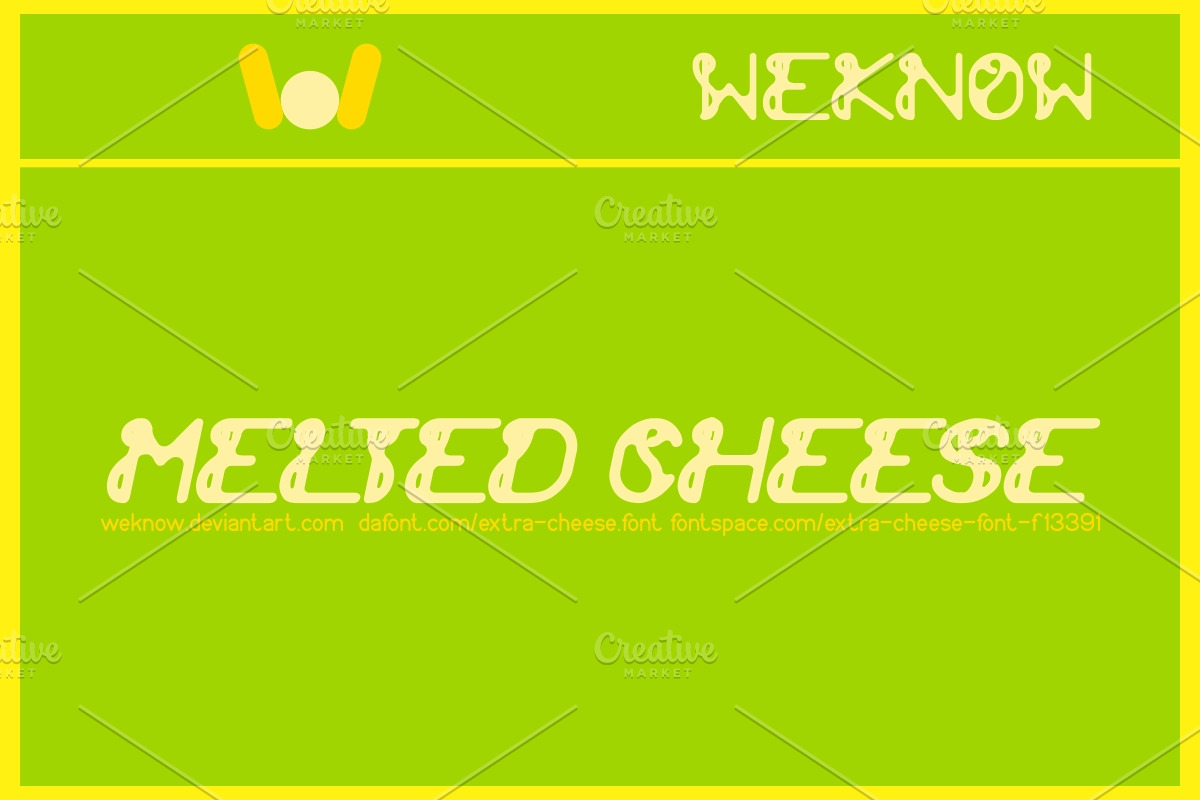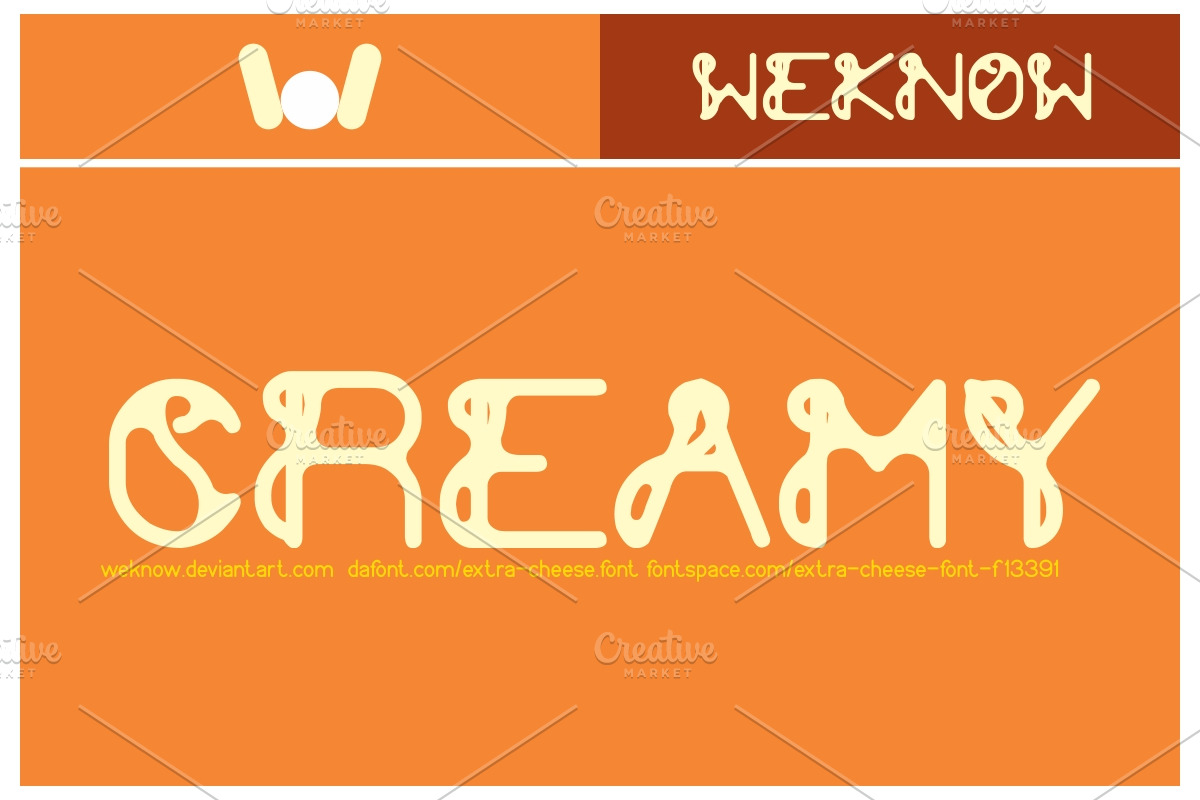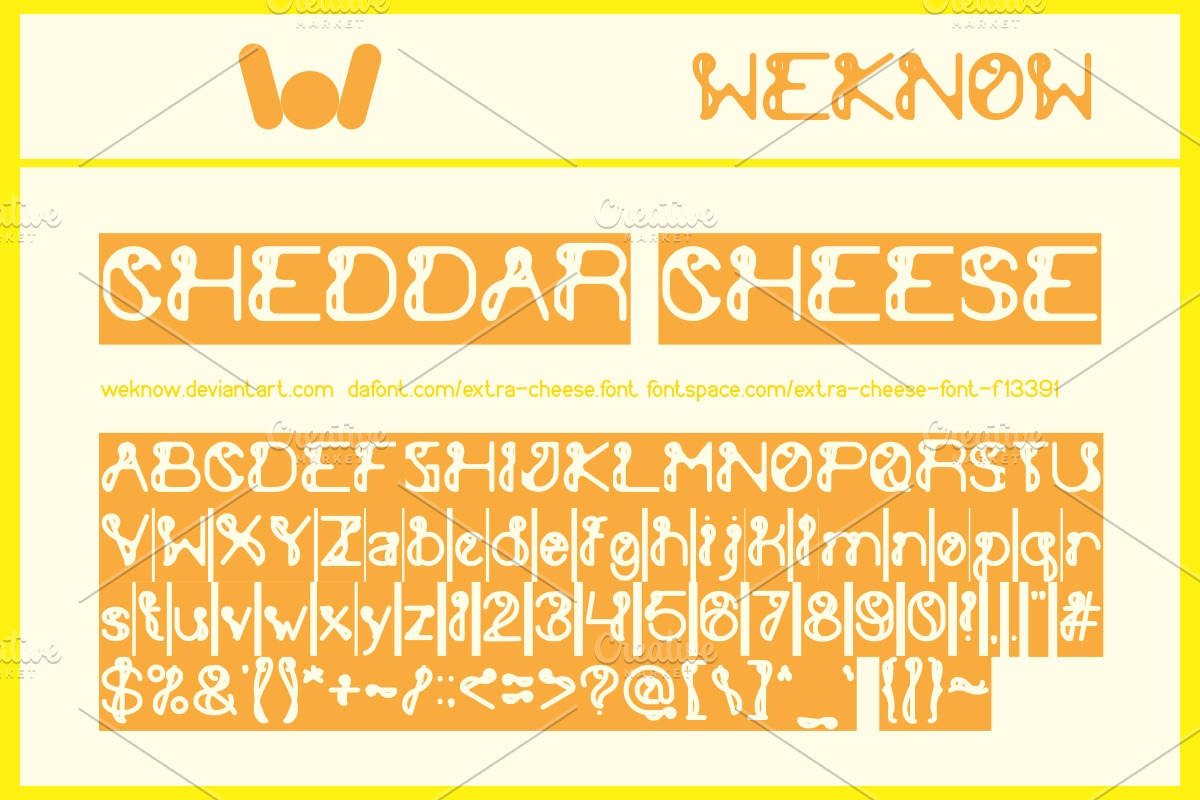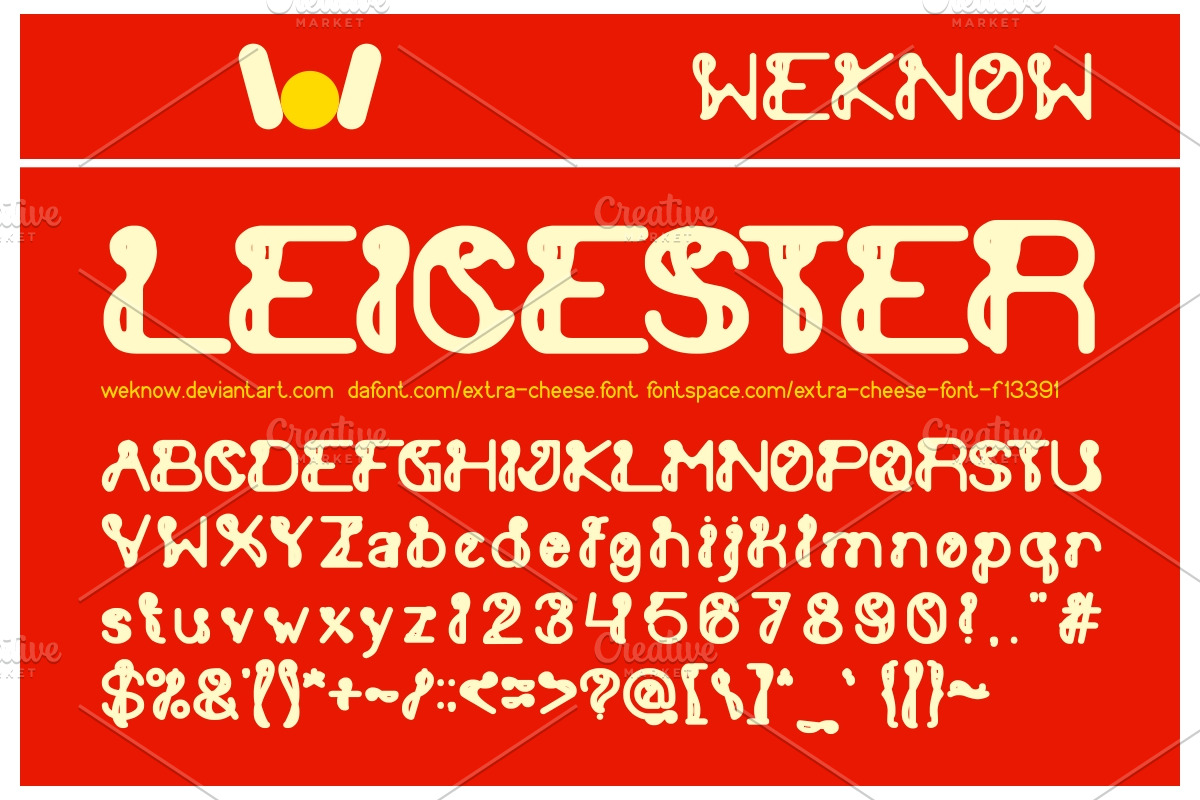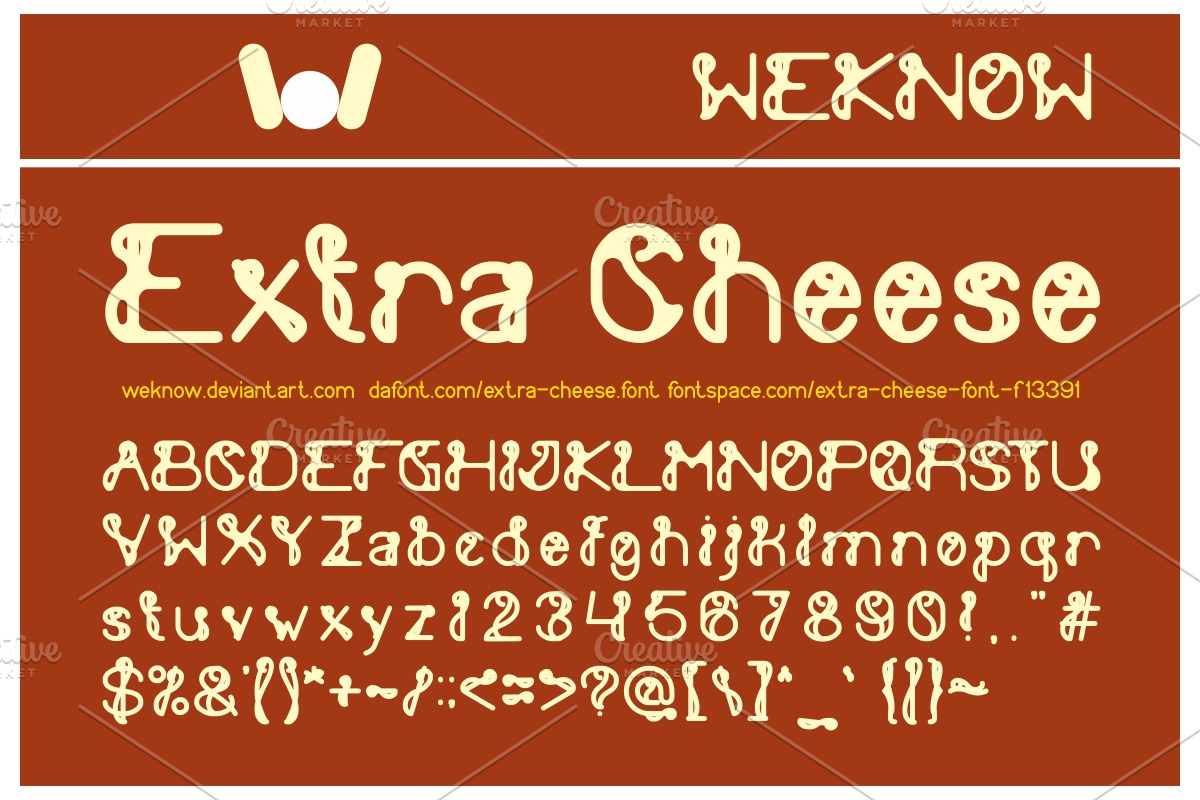
extra cheese font
available style: Extra Cheese-Bold, Extra Cheese-Bold-Italic, Extra Cheese-Inverse
- Extra Cheese Bold
- Extra Cheese Regular
- Extra Cheese Bold Italic
- Extra Cheese-Inverse Regular
Why extra cheese font is worth a look
extra cheese font by weknow fits naturally into Branding, posters, packaging, typography.